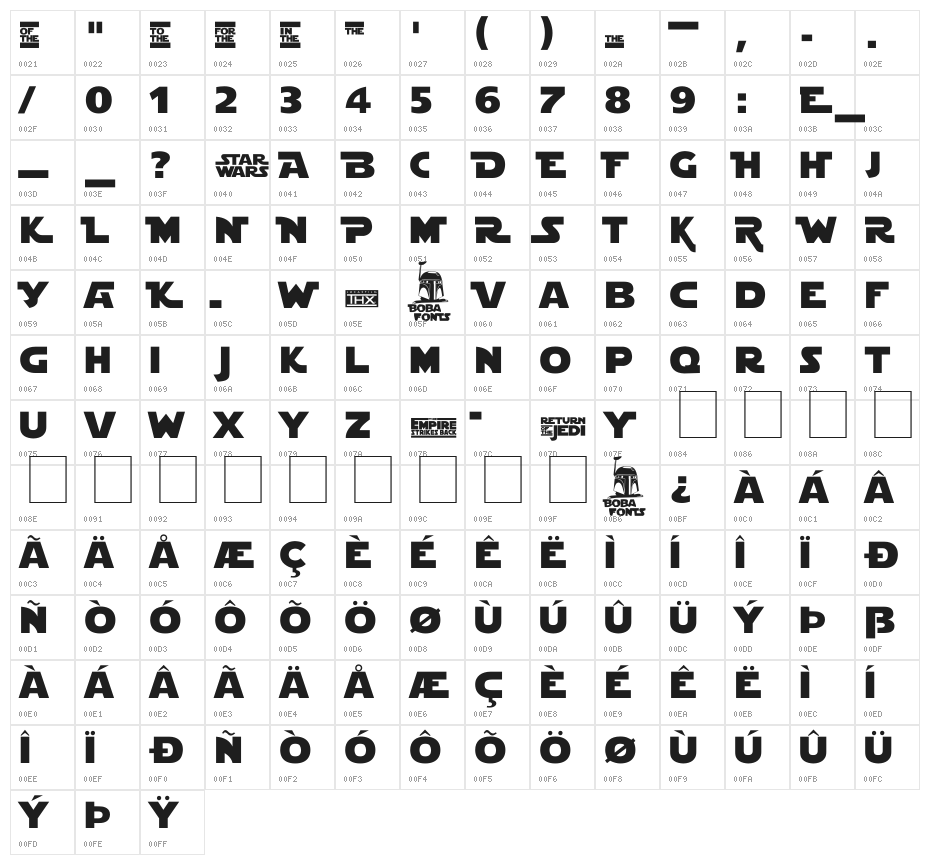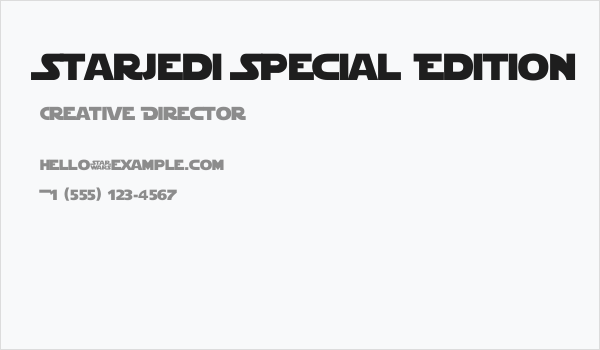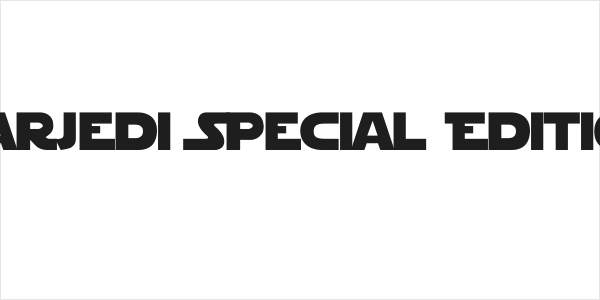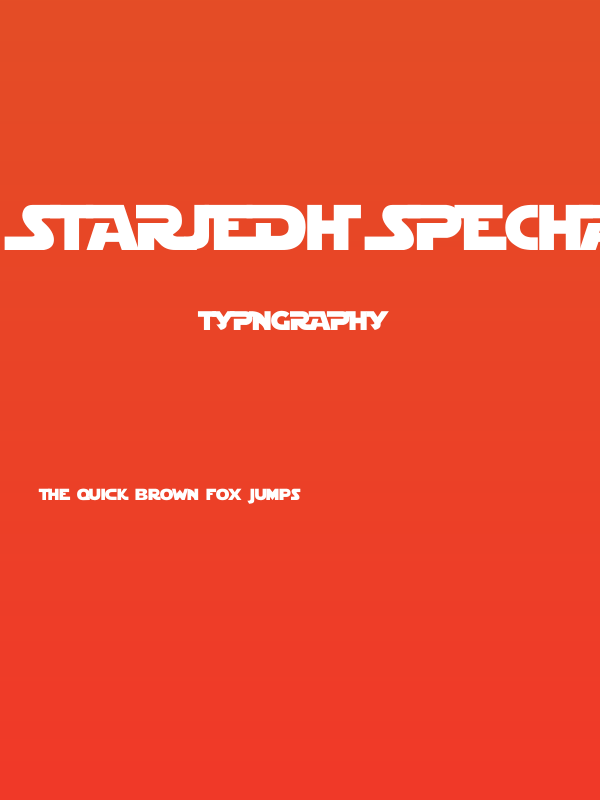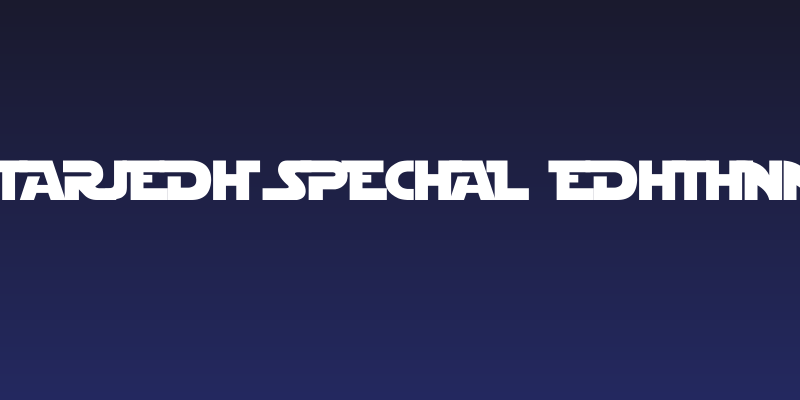
StarJedi Special Edition Font
StarJedi Special Edition Description
This font features a bold, futuristic design with strong geometric shapes and a distinct sci-fi aesthetic. The characters are wide and blocky, with sharp angles and unique cutouts that give it a dynamic, space-inspired look. The uppercase letters are particularly striking, with a uniform height and consistent weight that create a cohesive appearance. The numbers and special characters maintain the same bold style, ensuring visual consistency across all elements. This font is ideal for projects that require a modern, adventurous feel.
| Width | Expanded |
| Overall Style | Futuristic, Sci-Fi |
| Proposed Projects | Ideal for movie posters, video game titles, sci-fi book covers, and themed event invitations. |